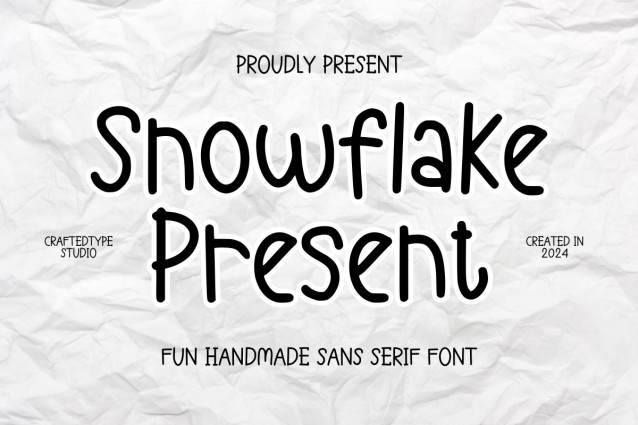
Snowflake Present Display Font
Snowflake Present Display Font is a fun christmas sans serif font. This font is perfect for kdp, journals, notes, teachers, teaching materials, quotes, scrapbooks, planners, memos, greeting cards, and many other creative ideas.